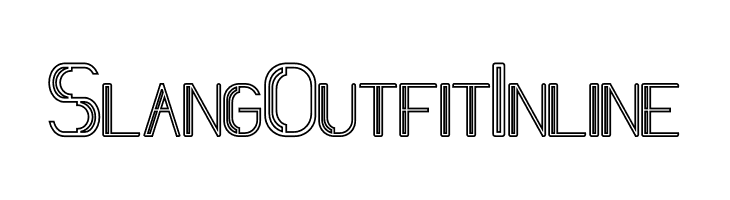
A decorative font featuring pictographic symbols inspired by ancient cave art.
A playful and artistic font featuring unique illustrative characters.
A classic serif font with a calligraphic touch, offering elegance and versatility.
Abstract, face-themed decorative font with geometric shapes.
Playful, abstract stick-figure font with expressive faces.
Bold animal silhouette icons with consistent solid fill.
A bold, chaotic, and distressed decorative font with a digital glitch aesthetic.
Intricate, glyph-inspired font with detailed, decorative characters.
A bold, contour-outlined font with a modern and impactful style.
A dynamic, angular font with a forward-leaning slant and dramatic flair.
Cartoon-style weather-themed pictogram font.
A modern, geometric font with a unique cut-off style and consistent stroke width.
A bold, industrial font with a 3D effect and mechanical design.
A bold, pixelated font with a retro digital aesthetic.
A modern, geometric typeface with clean lines and uniform stroke widths.
A modern, italicized font with sleek, elongated characters and minimal contrast.
A modern, ribbon-like font with smooth curves and flowing lines.
A dynamic, italicized font with a ribbon-like, flowing style.
A playful, modern font with rounded curves and a handwritten feel.
An elegant, flowing script font with smooth, connected strokes.
A dramatic and ornate Blackletter font with intricate flourishes.
A bold, intricate blackletter font with sharp angles and dramatic strokes.
A dramatic Blackletter font with ornate, angular designs and historical elegance.
A traditional blackletter font with intricate, angular designs and a historic feel.
Animal silhouettes in a bold, decorative style.
A classic serif font with elegant strokes and moderate contrast.
A bold, dynamic serif font with strong strokes and a modern twist.
A pictographic, hand-drawn font inspired by ancient cave art.
A modern sans-serif font with clean, geometric lines and uniform stroke width.
A modern, rounded sans-serif font with a friendly and approachable style.